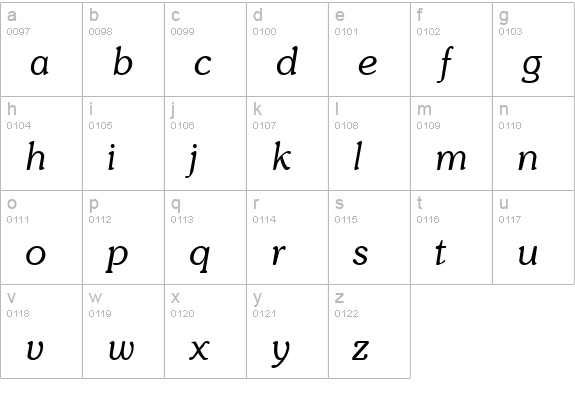
Soutane kursiv Font Details
Soutane kursiv is a stunningly elegant font that exudes sophistication and grace. Its beautifully slanted cursive style adds a touch of charm and refinement to any design or project. With its flowing and graceful letterforms, Soutane kursiv is perfect for adding a touch of elegance to invitations, wedding stationery, logos, branding, and more. This font effortlessly captures attention and creates a sense of luxury and exclusivity. Its delicate curves and intricate details make it a standout choice for designers looking to create stunning typography that leaves a lasting impression. Whether used for print or digital media, Soutane kursiv is sure to elevate any design to new heights. One of the standout features of Soutane kursiv is its versatility. It can be used in a wide range of design projects, from formal and traditional to modern and contemporary. Its timeless appeal ensures that it will never go out of style, making it a wise investment for designers and creatives alike. What's even more impressive about Soutane kursiv is that it is available for free! That's right, you can freely download this exquisite font at FontsMarket.com. This means that you can instantly elevate your designs without breaking the bank. Whether you're a professional designer or a hobbyist, having access to high-quality fonts like Soutane kursiv can take your work to the next level. So why wait? Download Soutane kursiv today and experience the beauty and elegance it brings to your designs. With its timeless appeal and breathtaking details, this font is sure to become a go-to choice for designers seeking sophistication and style. Don't miss out on this incredible opportunity to enhance your creative projects with Soutane kursiv, available for free at FontsMarket.com.